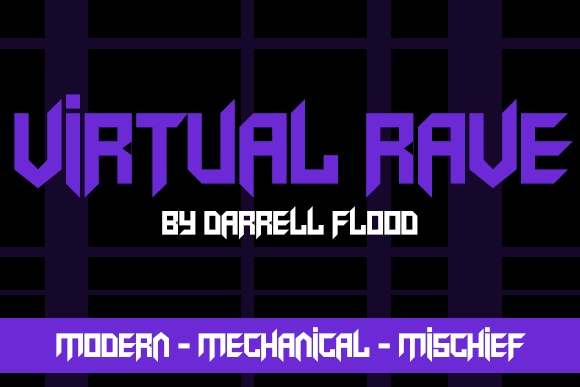
**Virtual Rave: Unleash Your Digital Edge**
Prepare to be captivated by Virtual Rave, a display font that defies boundaries. Its sharp angles and mechanical swagger conjure visions of futuristic landscapes and digital realms. Dive headfirst into the world of sci-fi and beyond, where Virtual Rave commands attention with its unapologetically sleek design.
Step into the digital arena armed with Virtual Rave, a font that embodies precision and modernity. Its clean, decorative strokes exude an air of sophistication, making it the perfect choice for crafting logos, headlines, and branding materials that demand to be noticed.
Virtual Rave is not just a font; it's a gateway to a world of limitless possibilities. Its versatility empowers you to express your creativity across a wide range of design projects. Let your imagination soar as you explore its potential in posters, brochures, packaging, and any other realm where your designs take flight.
With Virtual Rave at your fingertips, you'll discover a font that not only enhances your creations but also sparks inspiration within you. Its bold and edgy personality empowers you to push the boundaries of design, leaving an unforgettable mark on your audience.
Don't settle for ordinary fonts that blend into the background. Embrace the allure of Virtual Rave, a font that charges your designs with an electrifying presence. Let its sharp angles and mechanical charm elevate your projects to new heights, ensuring that your creations stand out in a digital world craving distinction.
Join the digital revolution with Virtual Rave, the font that empowers you to make a statement, ignite imaginations, and leave an indelible mark on the world of design. Experience the cutting-edge allure of Virtual Rave today and unleash your digital edge!